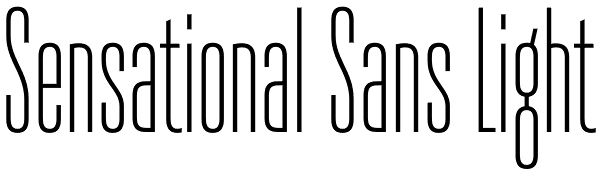
Sensational Sans
Sensational Sans is an original design by Alex Kaczun. The inspiration started with the shape of a paper clip. Simple and elegant. A condensed sans serif that's, well... just sensational! It's a delight to use and view. Great for advertising, large...